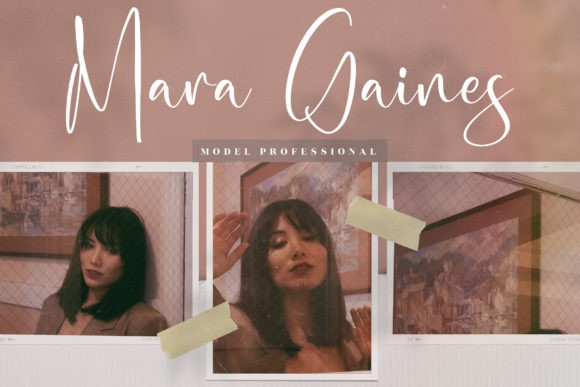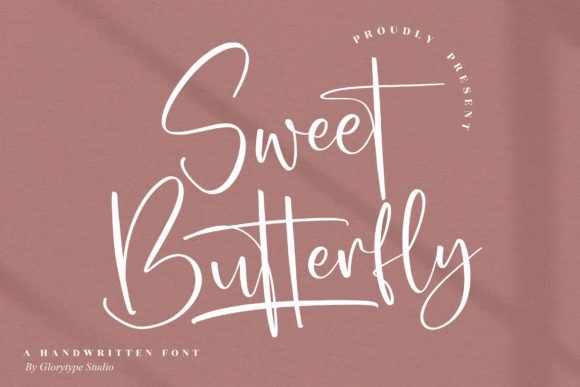
Sweet Butterfly Font
Sweet Butterfly Font is a beautiful script font, suitable for any projects such as logos, branding projects, homeware designs, product packaging, mugs, quotes, posters, shopping bags, t-shirts, book covers, name cards, invitation cards, greeting cards, labels, photography, watermark, special events, and all your other lovely projects that need a beautiful script taste.